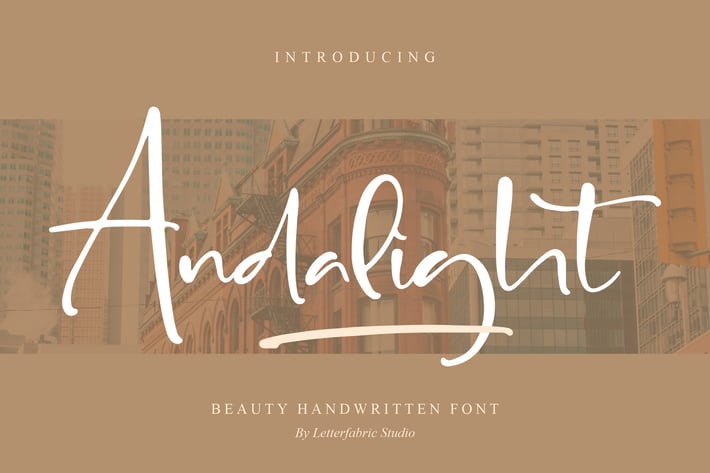
Andalight Handwritten Font
Andalight is a beauty–handwritten script with tall, elegant strokes, flowing loops, and a relaxed urban vibe. Its light monoline texture and sweeping swashes create effortless signatures and stylish headlines—perfect for brands that want modern charm with a human touch.
+ Regular & Italic styles for easy pairing
+ OpenType ligatures & stylistic alternates
+ Long beginning/ending swashes for signatures
+ Clean curves with refined kerning for polished results
+ Signature logos & personal branding
+ Beauty, fashion & lifestyle packagin
+ Wedding invitations, RSVPs & place cards
+ Social media posts and highlight covers
+ Quote prints & wall art
+ Blog headers & website hero text
+ Business cards & thank-you notes
+ Photo watermarks & editorials
Make every word glow—let your signature speak in Andalight.